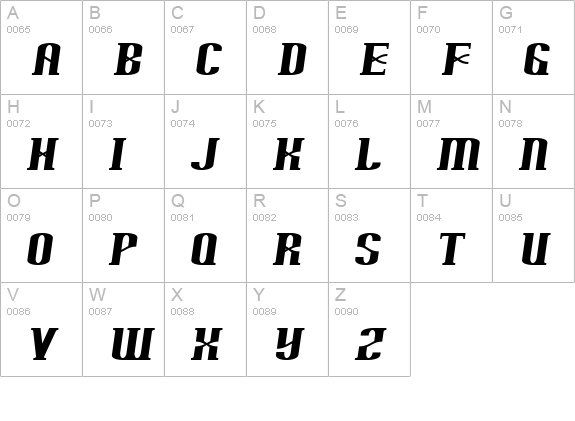
Arnprior Font Details
Arnprior font is a stunning display typeface that exudes elegance and sophistication. With its unique and intricate design, this font is perfect for creating eye-catching logos, headlines, and branding materials. The sharp lines and graceful curves of Arnprior font add a touch of modernity and style to any project. What's even better is that Arnprior font is available for FREE download at FontsMarket.com! This means you can easily access this beautiful font and use it in your designs without any cost. Don't miss out on the opportunity to enhance your creations with the timeless beauty of Arnprior font. Download it today and elevate your design game to new heights!